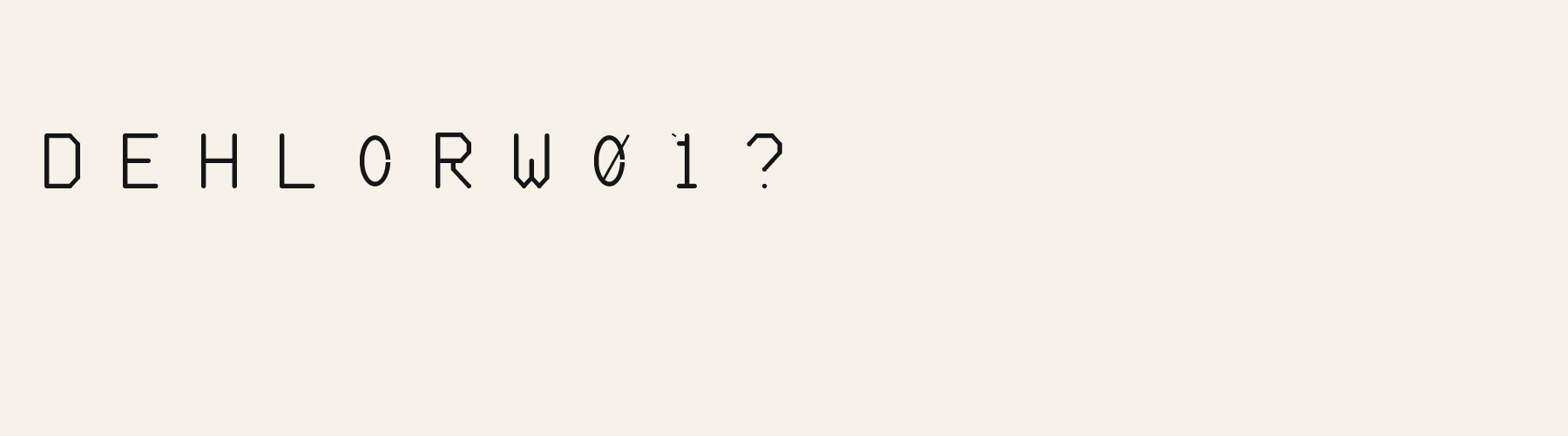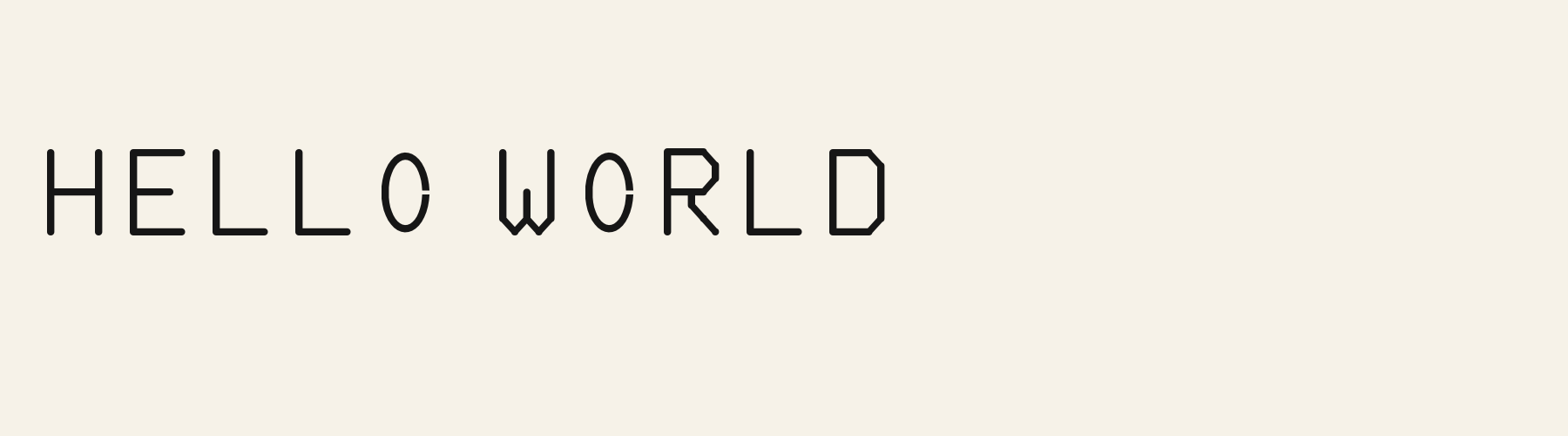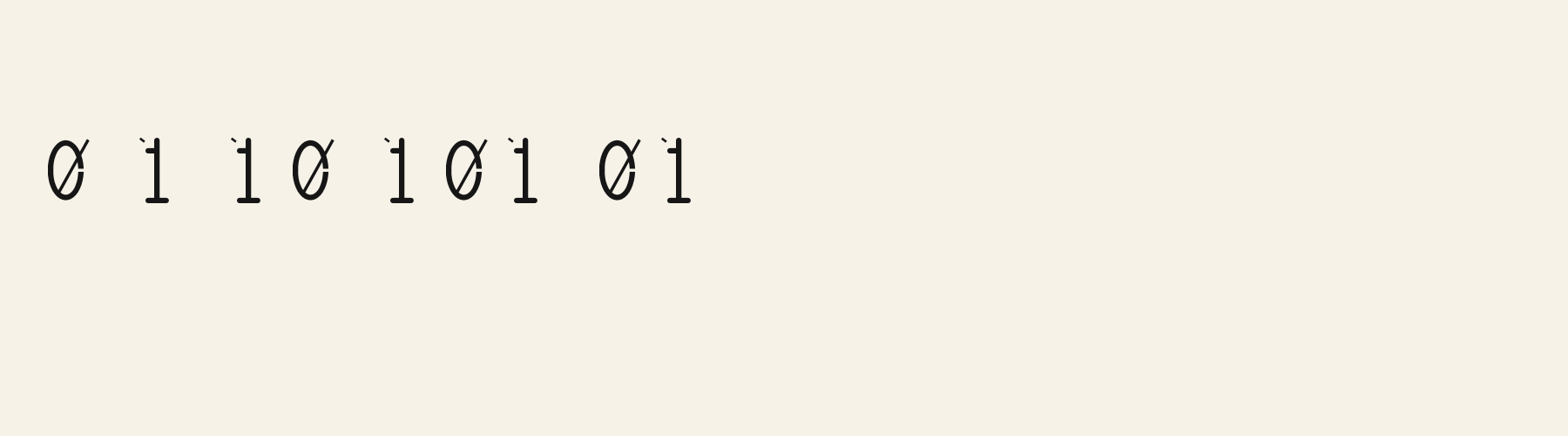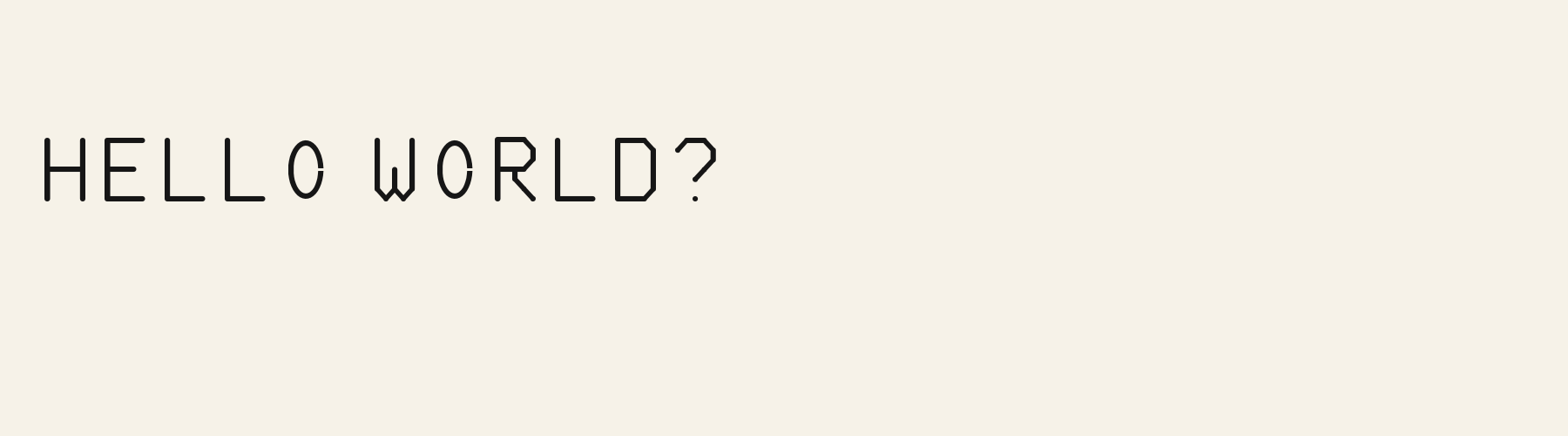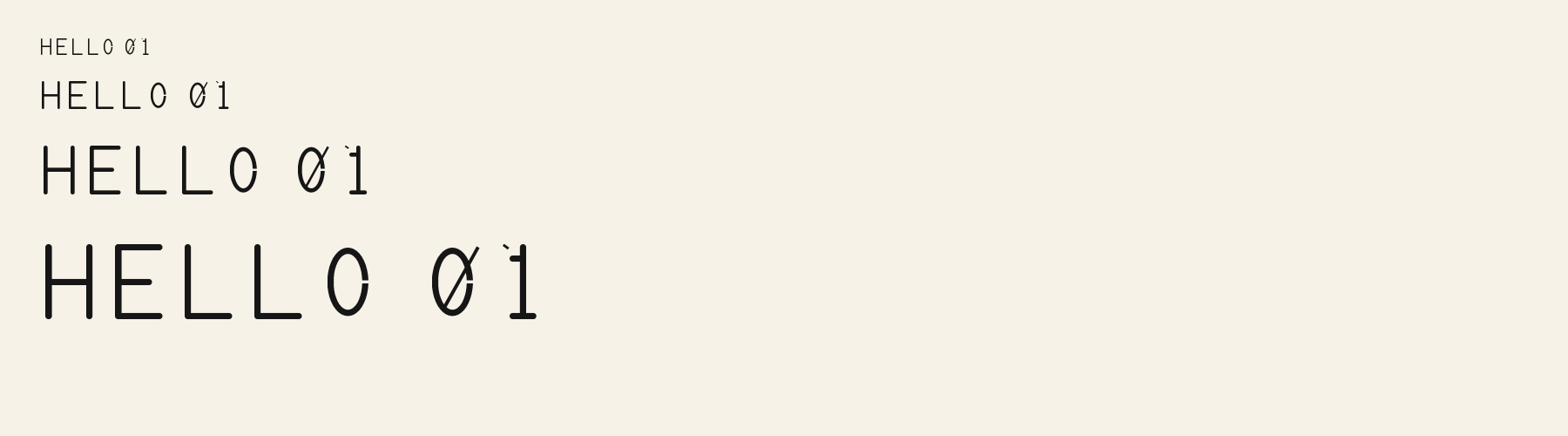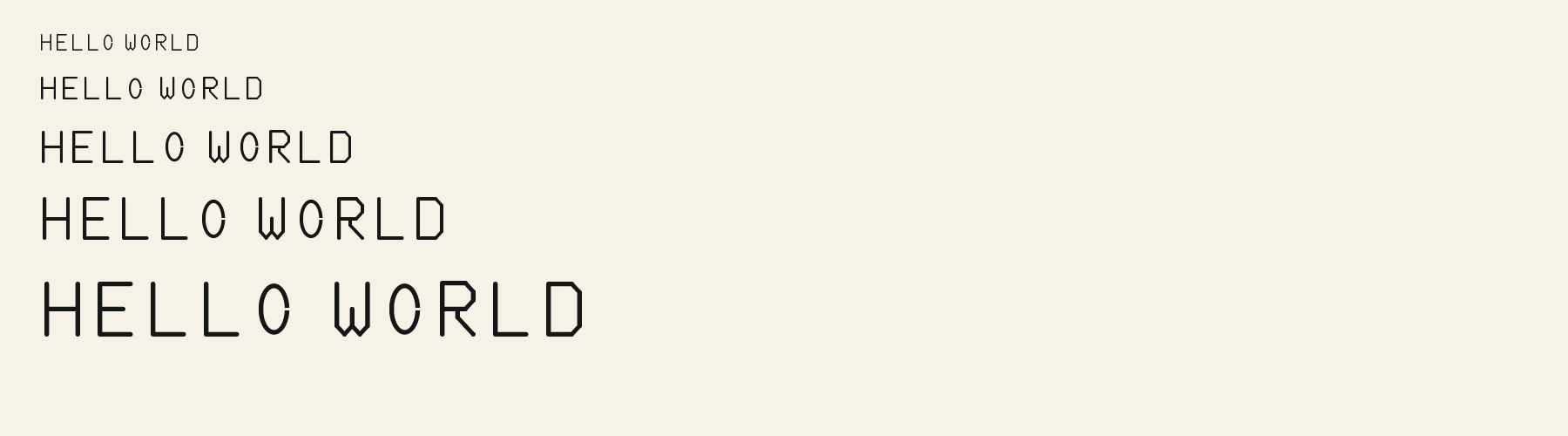
Mono OCR Rounded Notch Chamfered Oval Interface Font
Mono OCR Rounded Notch combines spare upright strokes with clipped corners and softly capped ends.
Chamfered Oval Interface Letterforms
Mono OCR Rounded Notch combines spare upright strokes with clipped corners and softly capped ends. The O is a narrow oval with a small opening at its right midpoint, sitting slightly inside the surrounding capitals. The R pairs a chamfered bowl with a leg that drops briefly before turning diagonally outward. The W has straight outer stems, angular bottom points and a shorter central stem. These details give the lettering a technical, slightly interrupted rhythm. The even stroke stays visually light, while generous space around the letters keeps short phrases airy and measured.
In Latin wording, inspect the opening in O, the turn in R’s leg and repeated W shapes at your intended size. Check punctuation against nearby letters. For Thai or accented text, test actual words and mark placement separately; these Latin specimens leave their appearance unverified.
Try this face for short headings or labels, with a fuller proportional sans serif for supporting text. Its light strokes, narrow oval O and angular W establish a distinctive rhythm; a companion with broader curves could give paragraphs a calmer texture.
Compare smaller and larger previews to inspect the opening in O and the short turn in R’s leg. At the smaller setting, check whether these details remain distinct and whether the thin strokes retain enough presence against your background.
Mono OCR Rounded Notch uses narrower oval O forms with small right-side openings, alongside lighter-looking strokes. Choose it when those interrupted curves and generous surrounding space suit a spare interface or technical label.
Mono Terminal Round shows closed, octagonal O forms and heavier-looking strokes in the supplied specimens. Its repeated clipped corners give the line a more uniformly angular rhythm, useful when you want a firmer console-like heading.
Product label. Even strokes and clipped corners give equipment labels a technical character, while open surrounding space keeps short names visually separate. QUIET SIGNAL
Book or album cover. Narrow oval curves and interrupted contours suit a restrained electronic album cover with plenty of empty space. SYSTEM READY
Website headline. Angular joins and softly capped stems give a short interface headline a distinct mechanical rhythm without a heavy silhouette.
The scenes are illustrations drawn on this page with Mono OCR Rounded Notch itself, not client work.
Mono OCR Rounded Notch's lowercase x reaches 69.5% of the capital height, close to the 70.2% median for monospace fonts, lower than 16 of the 22 other monospace fonts. Ascenders on b, d, h, k and l line up with the capitals (100% of their height), and descenders on g, j, p, q and y drop 30.5% of the cap height below the baseline, deeper than 13 of the 22 other monospace fonts. Mono OCR Rounded Notch runs 9.7% wider than the median for monospace fonts: an average lowercase letter, spacing included, is 94.3% as wide as the capitals are tall (an average capital, 94.3%). The o is an upright oval, 0.90 times as wide as it is tall, and every capital has the same width. The O stops 4.2% of the cap height short of H and stands 4.2% above the baseline.
The letters stand upright, leaning less than 2.5° either way. Vertical stems measure 8.4% of the cap height, lighter than 15 of the 18 other monospace fonts. Ink covers 17% of each lowercase letter's box (its advance width by the cap height), the lightest of all 23 monospace fonts.
Its 232 characters include 116 Latin and 73 Thai letters, plus 43 figures, punctuation marks and symbols; 64 of the Latin letters are accented or special forms beyond A to Z. The word space measures 45.2% of the cap height, and the blank space either side of a lowercase letter takes up 37.1% of its width. The font carries no kerning, so spacing comes from each letter’s own side bearings. Its OpenType tables also hold mark positioning for accents and vowel signs (mark, mkmk). All ten figures share one width, so columns of numbers line up.
Measured from the version 0.3.2 font file. Comparisons are with the 376 published library fonts measured on November 8, 2026, 23 of them monospace fonts.
- What fonts pair well with Mono OCR Rounded Notch?
- Atrium Sans (sans serif), Ion Velvet Grotesk (sans serif) and Harbor Slab (serif) are drawn on a different letter structure, so Mono OCR Rounded Notch can carry the headings while one of them sets the text. Each has its own page with a type tester for trying the pair.
- Which fonts are similar to Mono OCR Rounded Notch?
- In the same monospace style: Manuscript Mono (heavier strokes, 9% narrower); Telegram Typewriter (9% narrower); Debug Duplex (heavier strokes, 9% narrower).